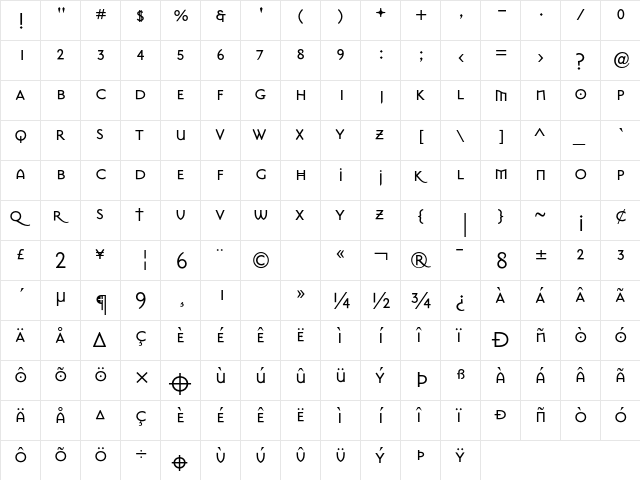
MasonSansSuper Roman
Design Context for MasonSansSuper Typeface
MasonSansSuper offers clean, dependable letterforms without strong stylistic allegiance, making it a practical choice for designers who need flexibility.